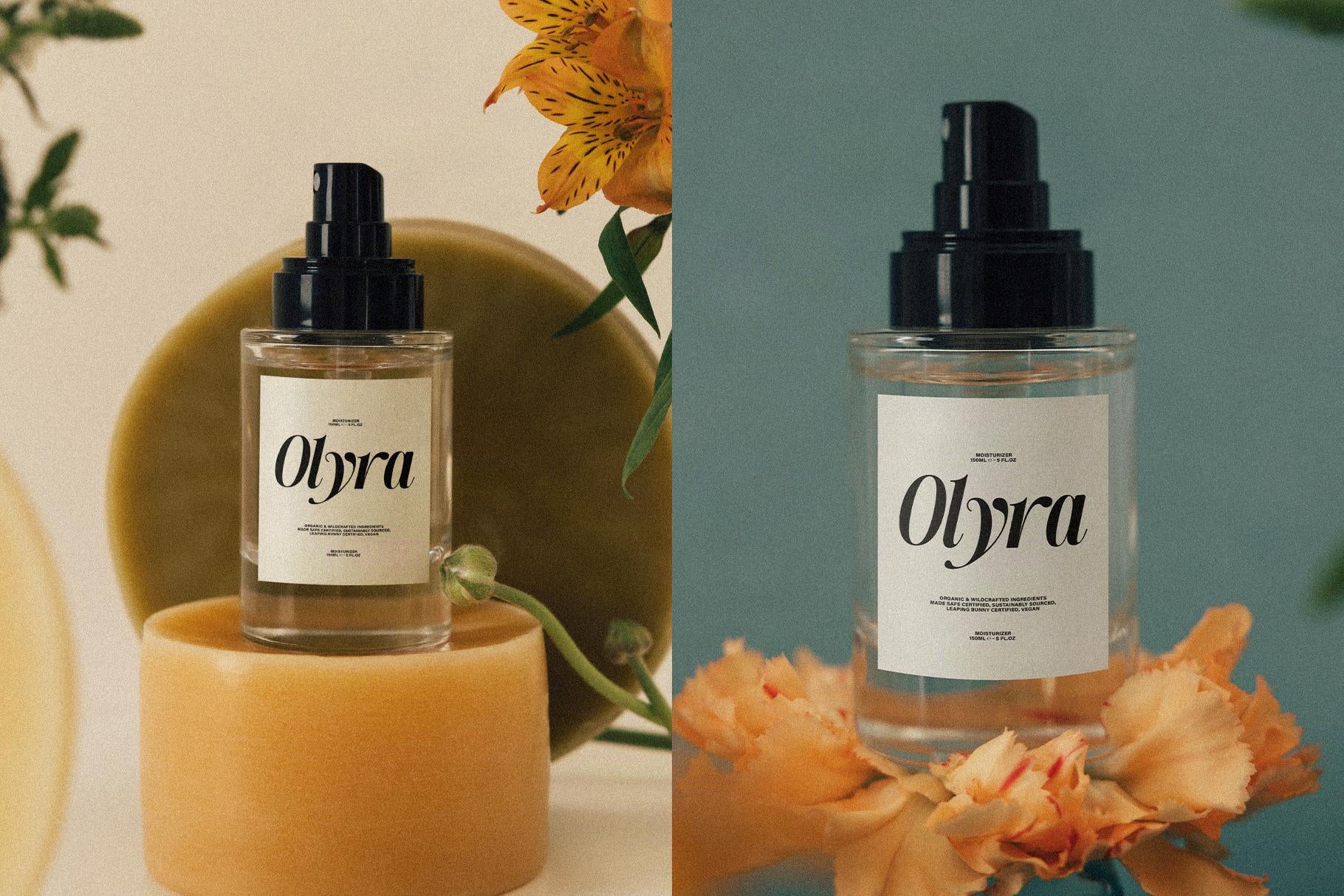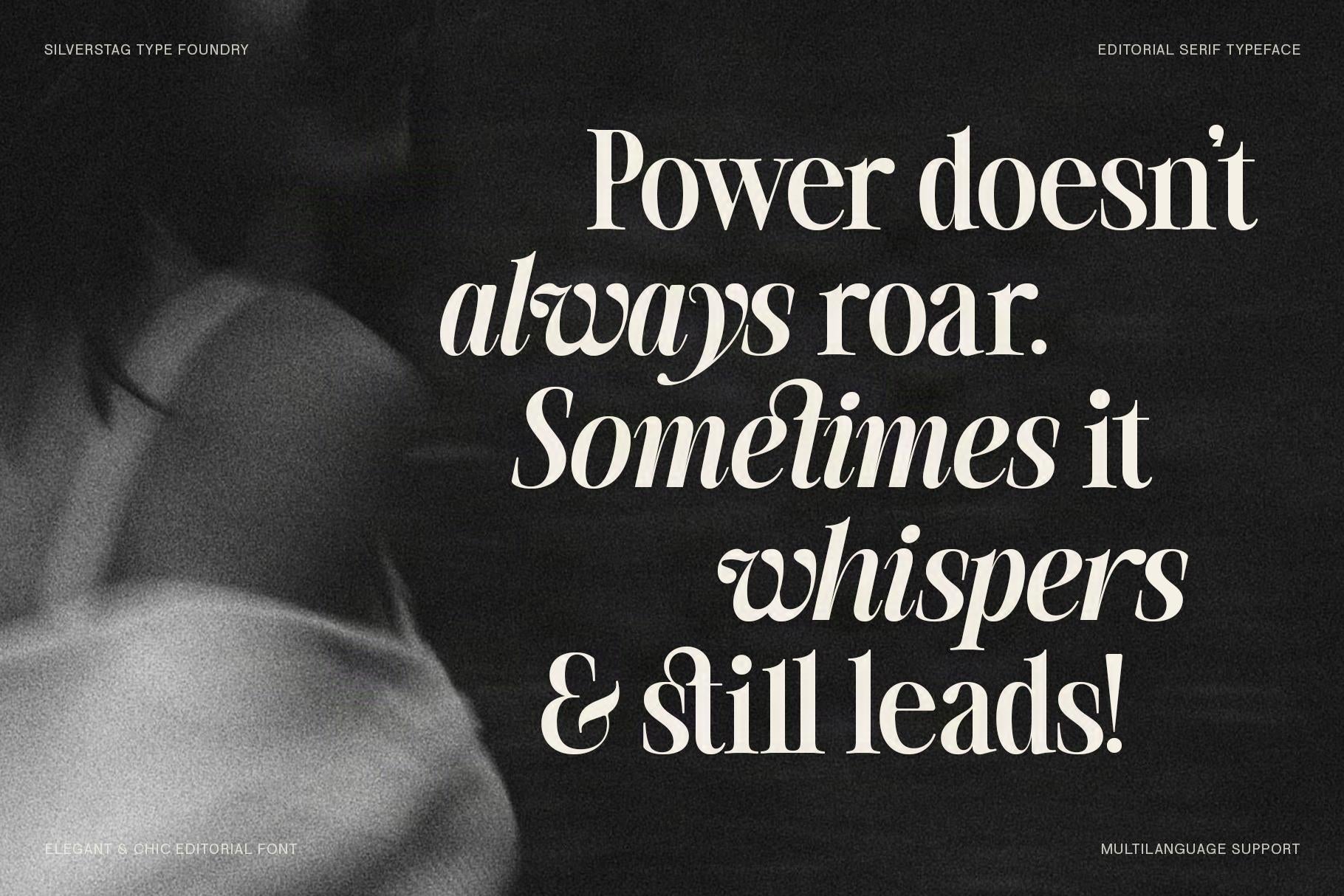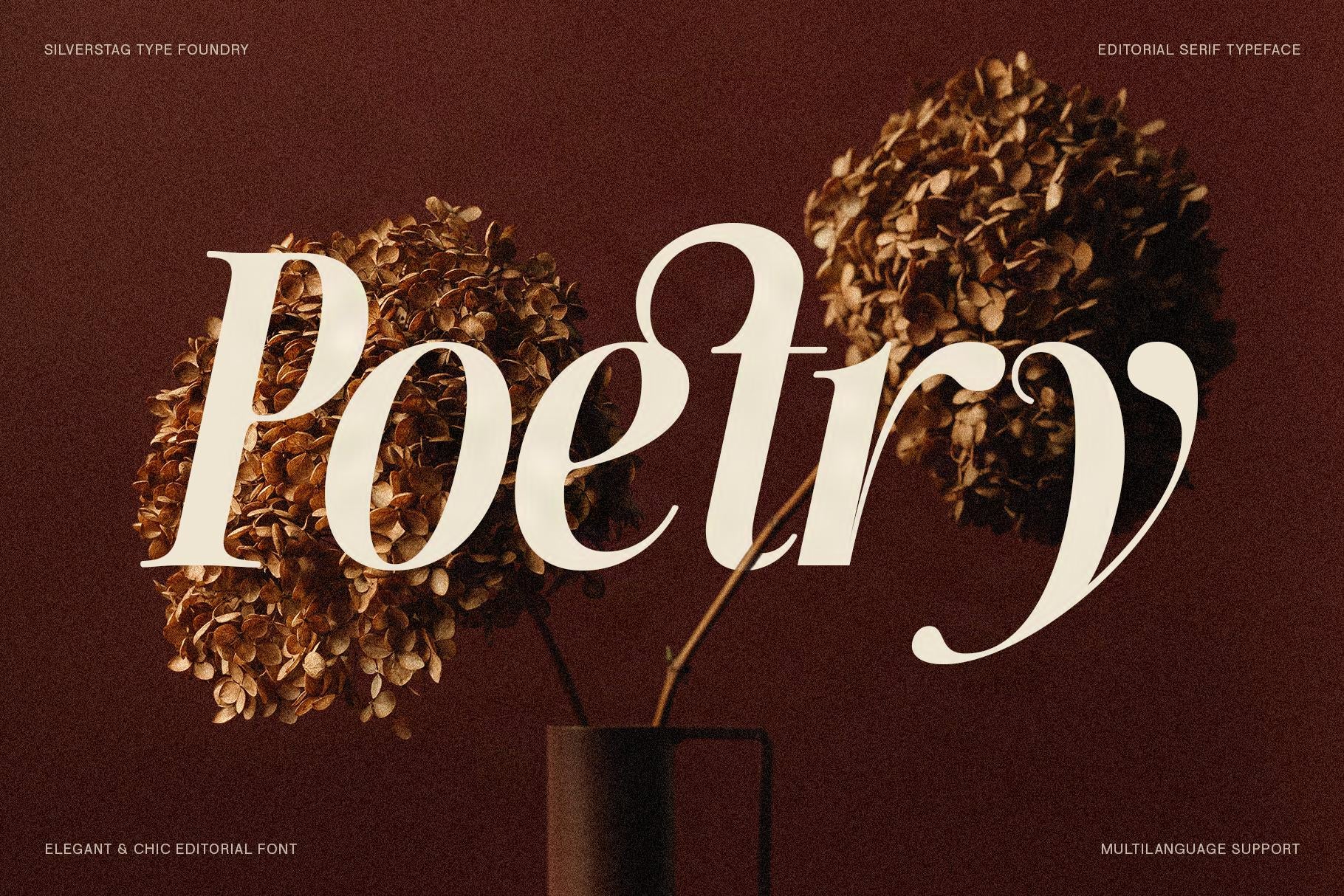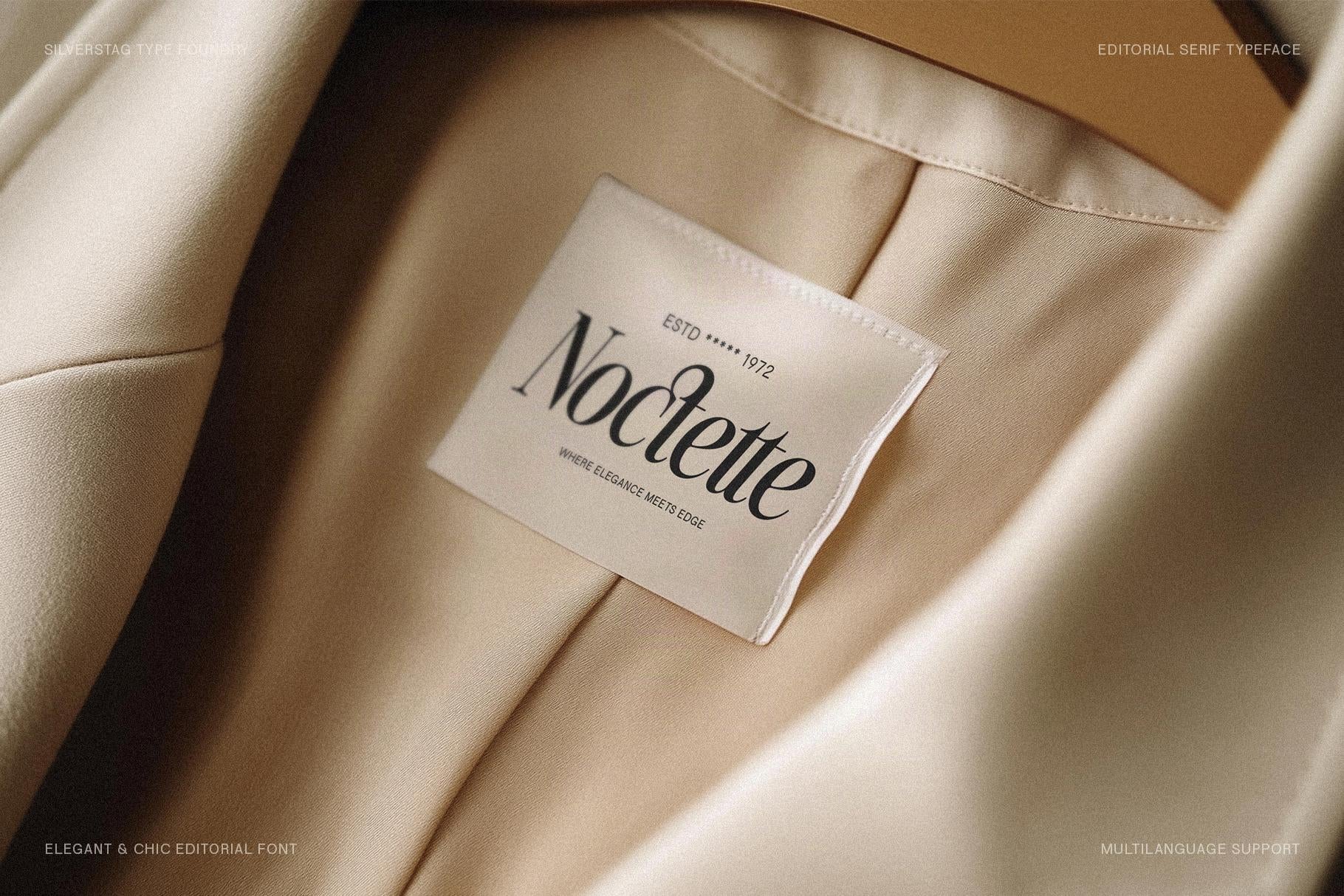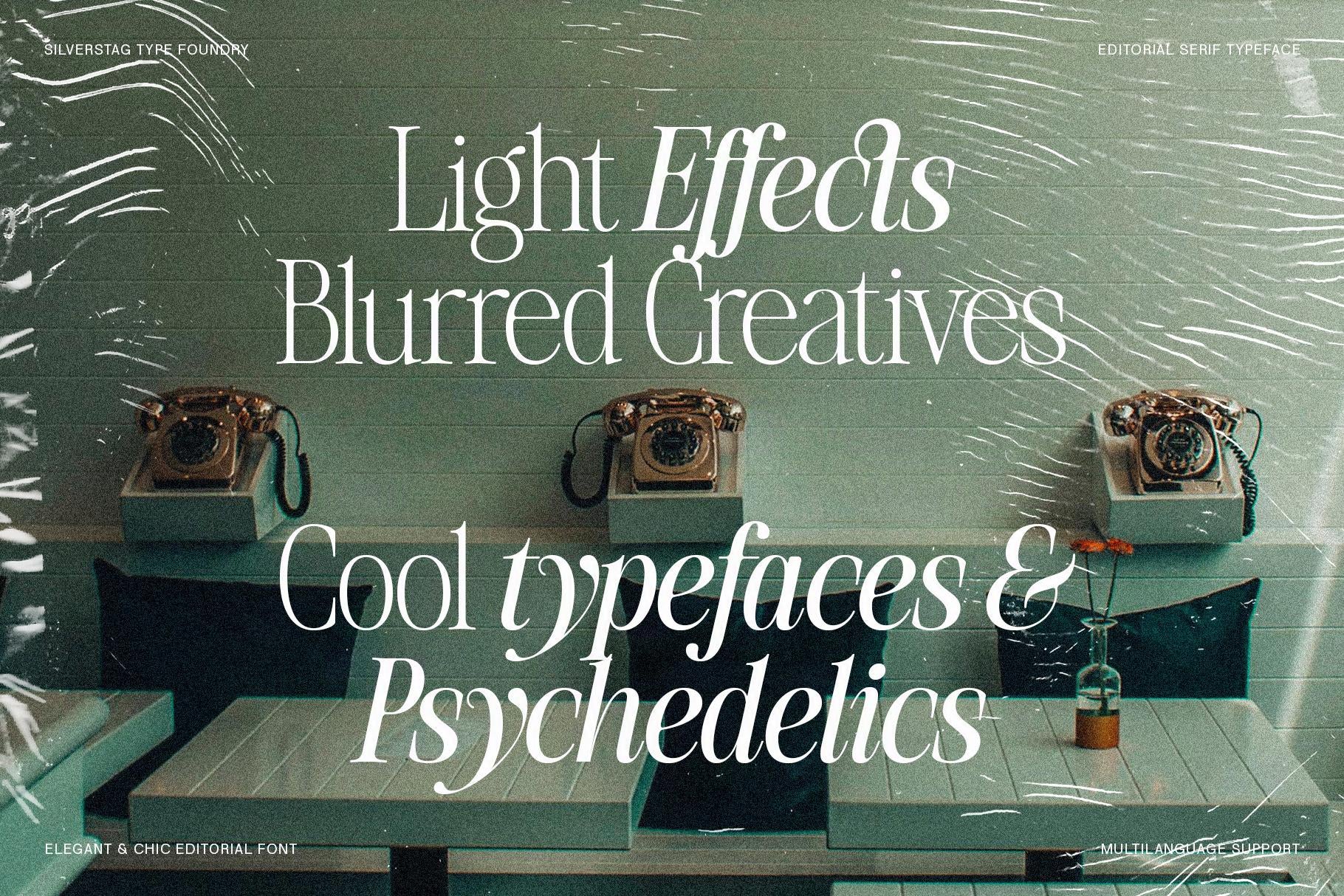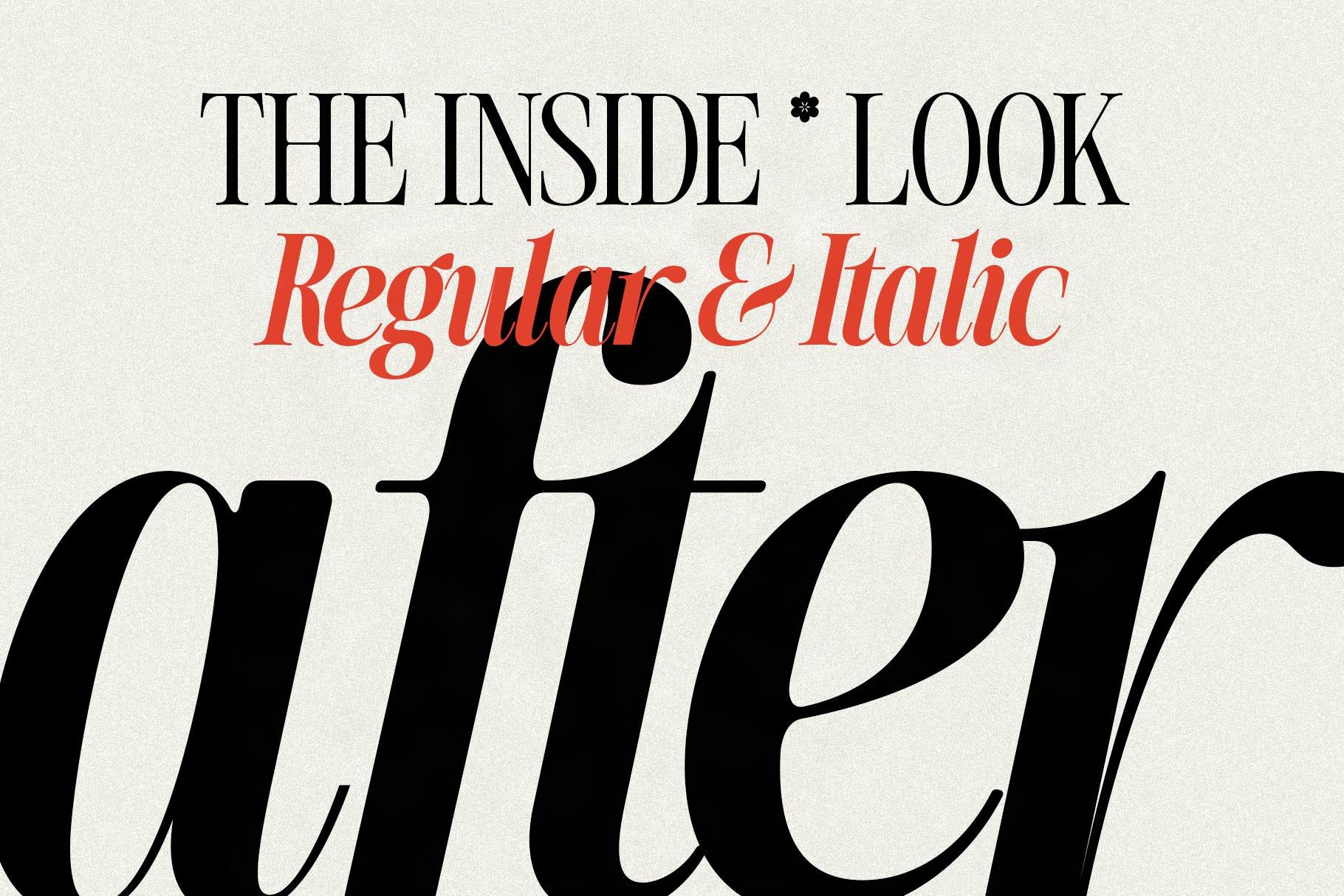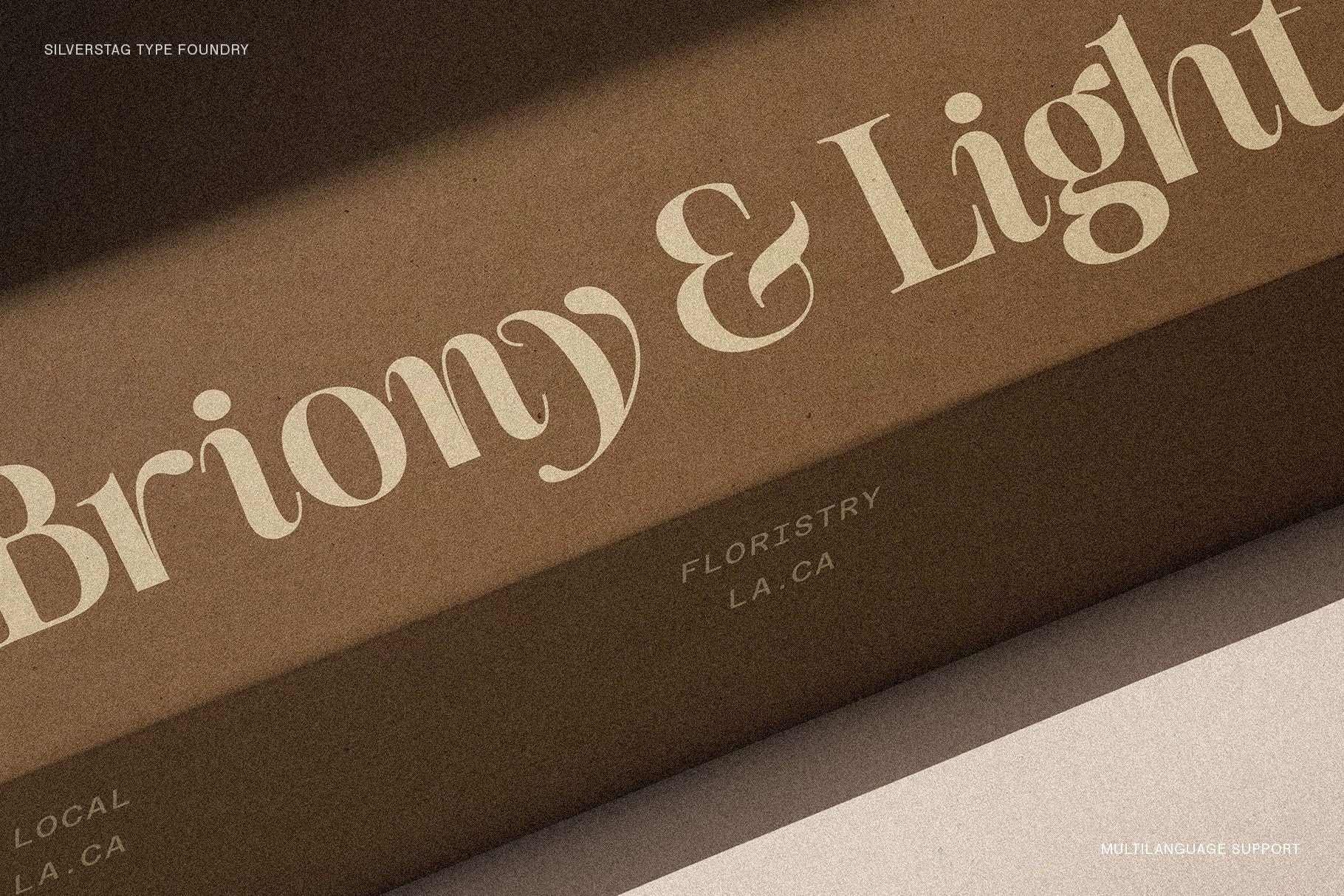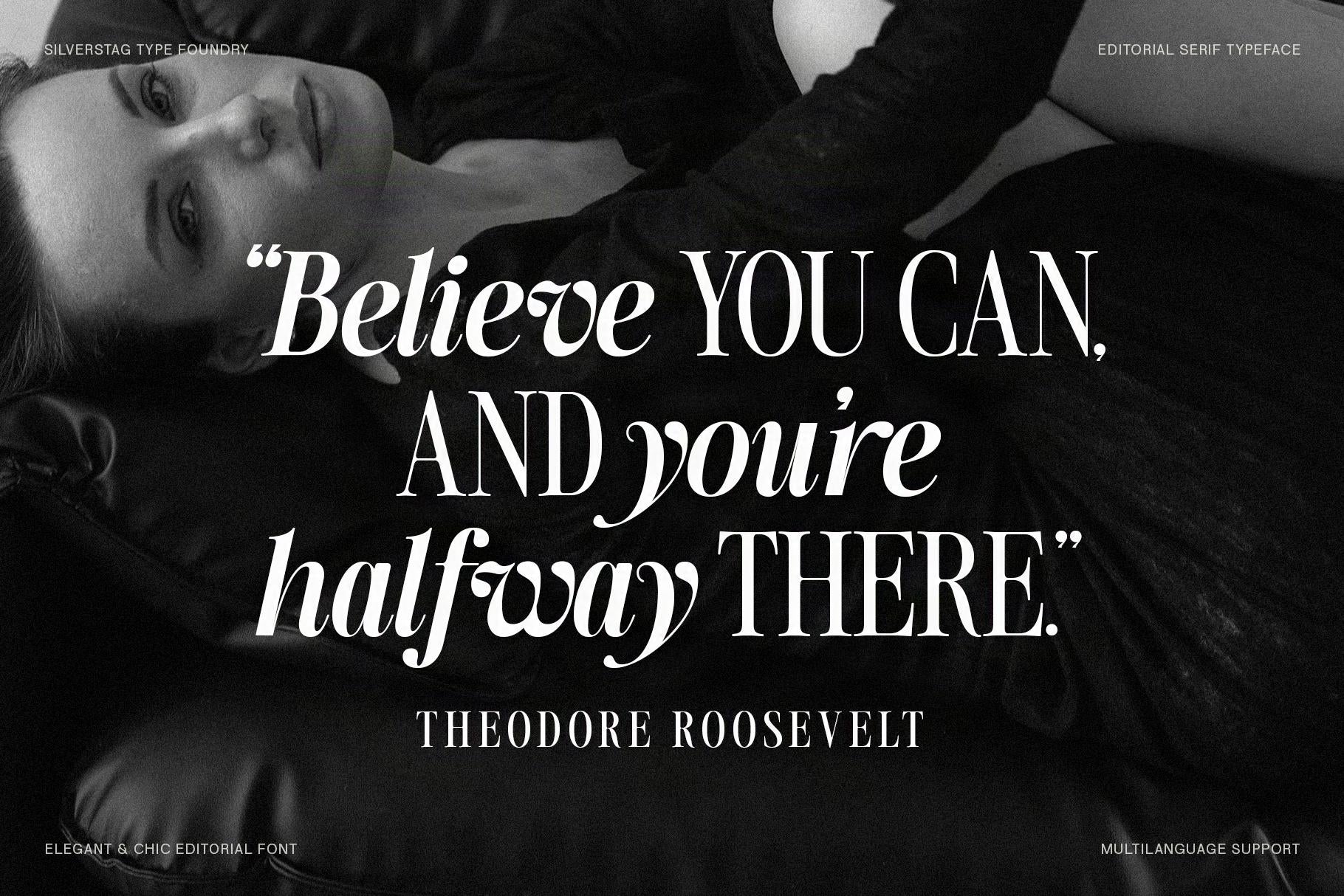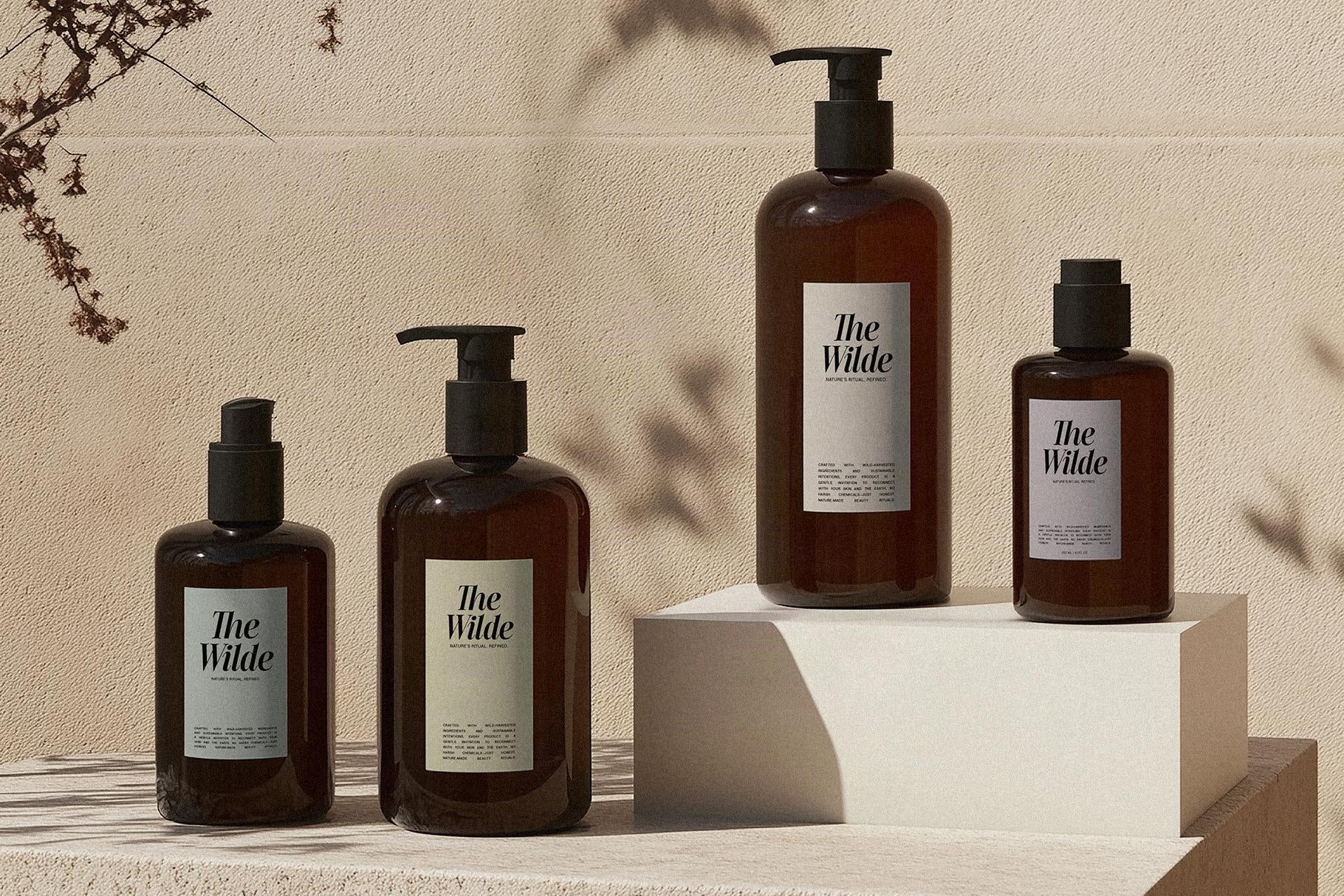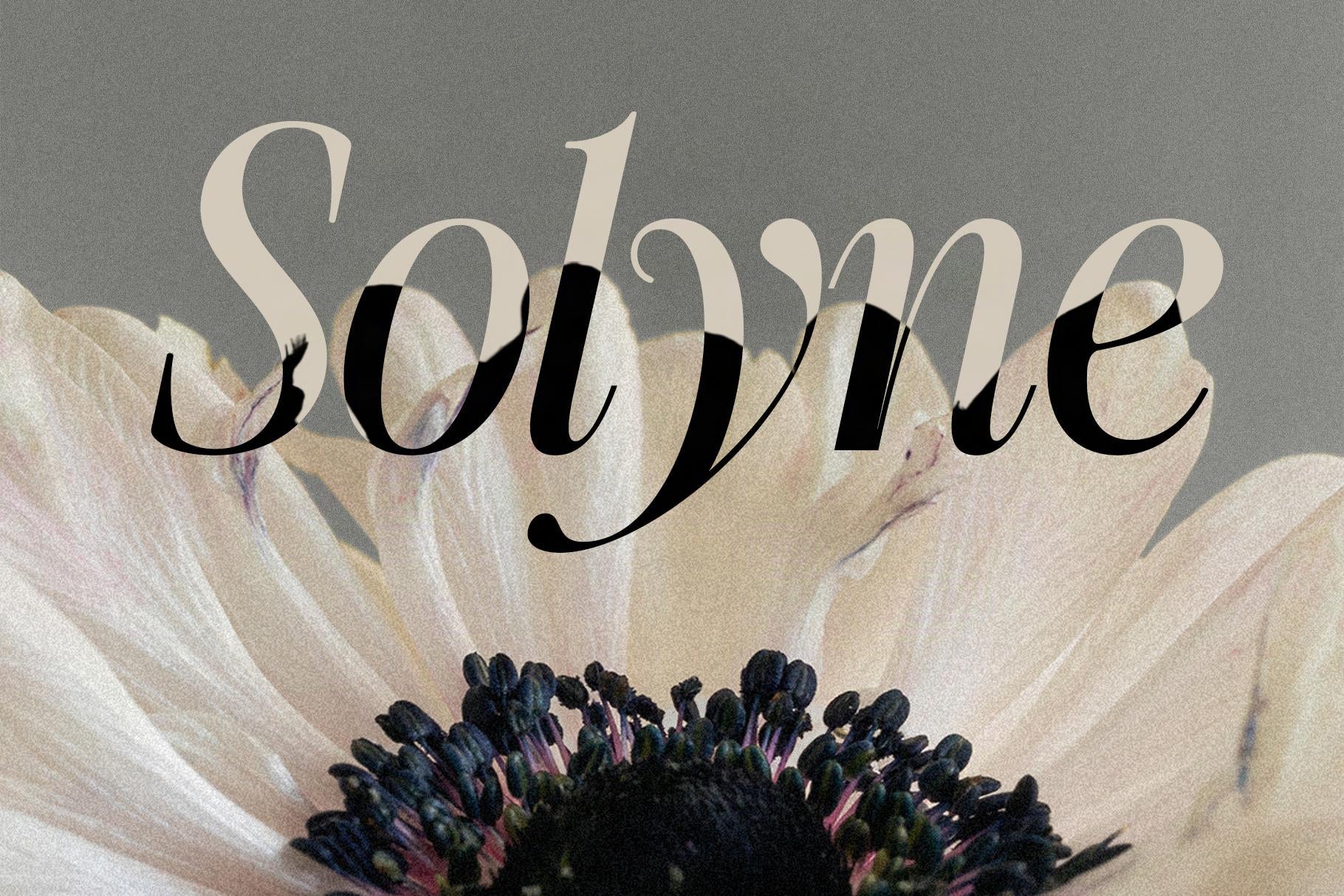
SLTF The Silver Editorial – A Nostalgic 18-Font Serif Typeface
The Silver Editorial – A Nostalgic 18-Font Typeface—now more refined, versatile, and complete than ever before. This expanded version of one of my best-selling serif typefaces has been fully redrawn and upgraded into a comprehensive typographic system with 18 fonts in total (9 weights + italics). Designed for beauty and built for function.
As a font designer, I’m always searching for that perfect balance between the familiar and the unexpected. With The Silver Editorial, I believe I’ve found it. This fresh editorial serif draws inspiration from the iconic typefaces of the 1980s, yet exudes an undeniably modern spirit.
Remember the bold, expressive serifs that graced the pages of high-fashion magazines and cutting-edge publications in the 80s? The Silver Editorial channels that vintage charm while pushing the boundaries of contemporary design. I’ve taken the cool confidence of those typefaces, stripped away any excess, and sharpened them for the digital age.
Where It Shines
Luxury branding & packaging
Editorial design
Web typography
Posters, portfolios & moodboards
Logo design
**SLTF The Silver Editorial – A Nostalgic 18-Font Serif Typeface** is a refined typographic system featuring 18 fonts, including 9 weights and italics. This expanded version of a best-selling serif typeface combines modern design with retro influences, offering support for over 100 languages and a range of stylistic features such as alternates and ligatures.
Ideal for luxury branding and editorial design. Perfect for magazines, packaging, posters, and logo creation, ensuring a sophisticated and timeless visual identity that captivates audiences.